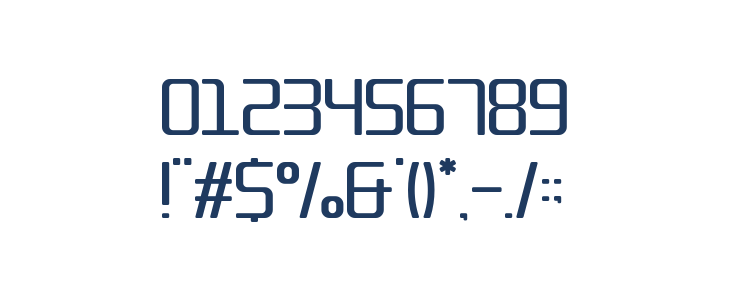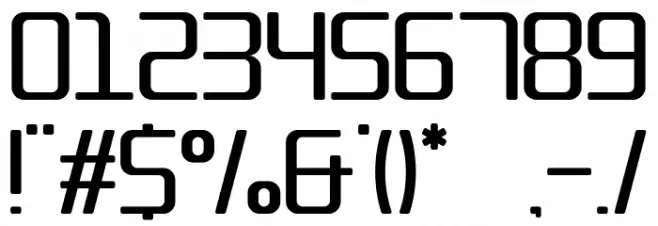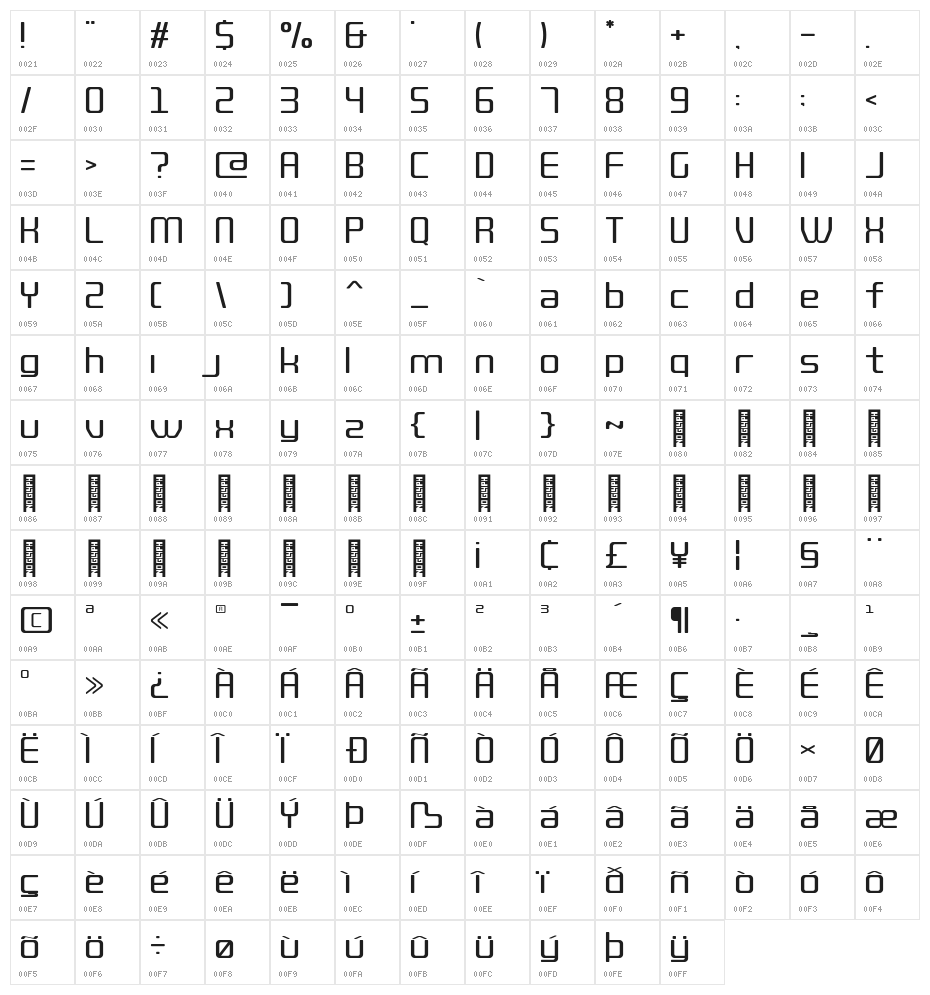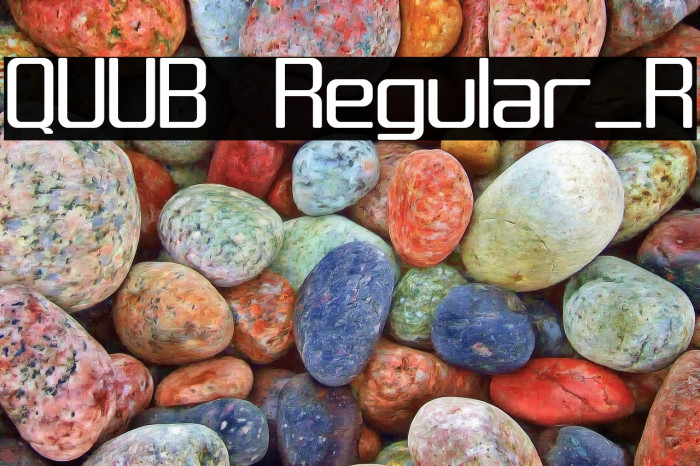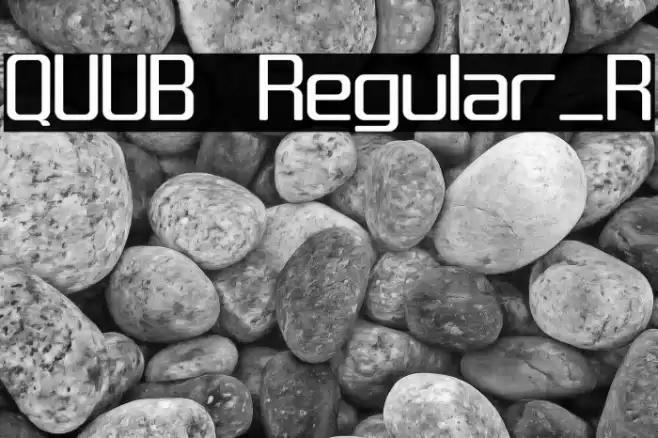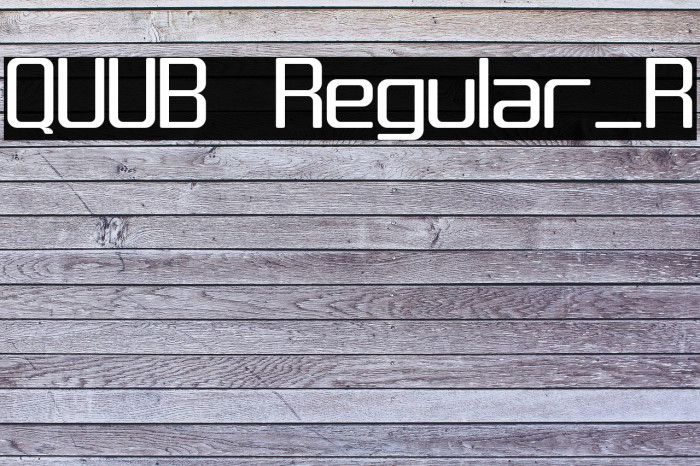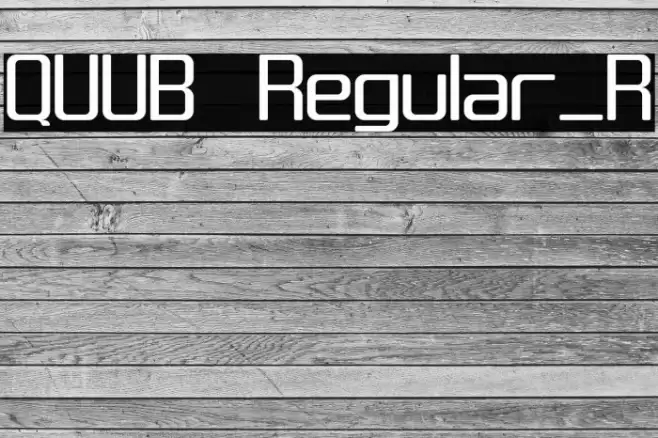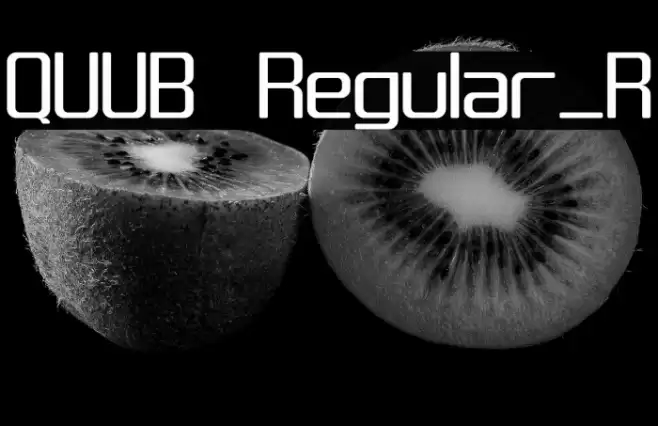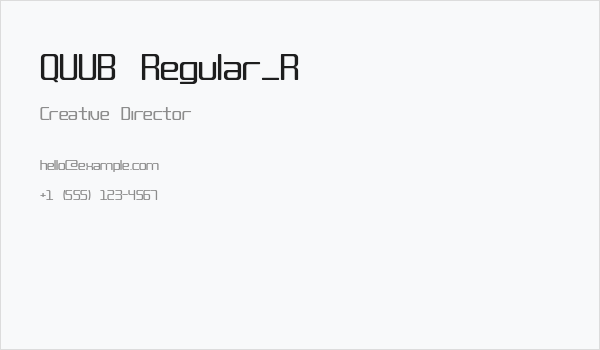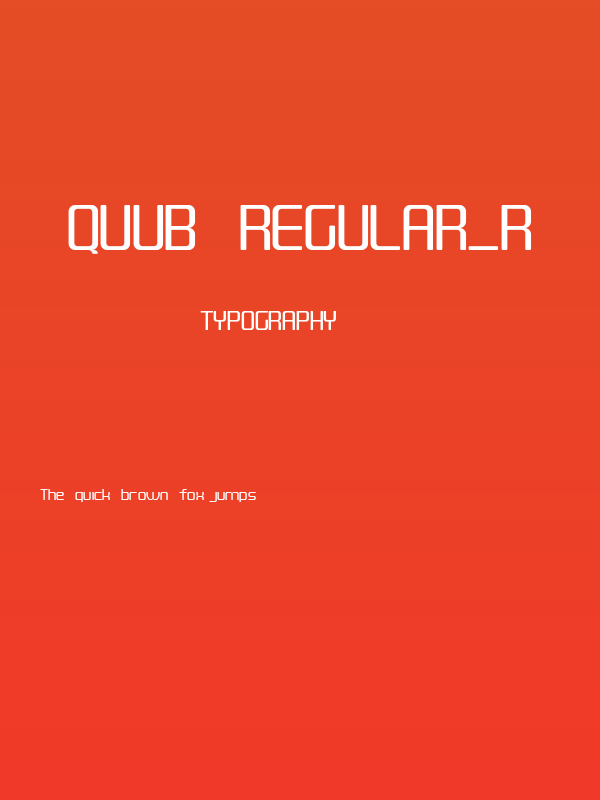
QUUB Regular_R Font
QUUB Regular_R Description
This font features a modern, geometric design with rounded edges and a clean, streamlined appearance. The characters are uniform in width, giving it a monospaced feel, though it maintains a sense of openness and readability. The uppercase letters are bold and structured, while the lowercase letters retain a similar geometric style, ensuring consistency across the typeface. Numbers and special characters follow the same design principles, making the font versatile for various applications. Its simplicity and clarity make it suitable for digital interfaces and print media alike.